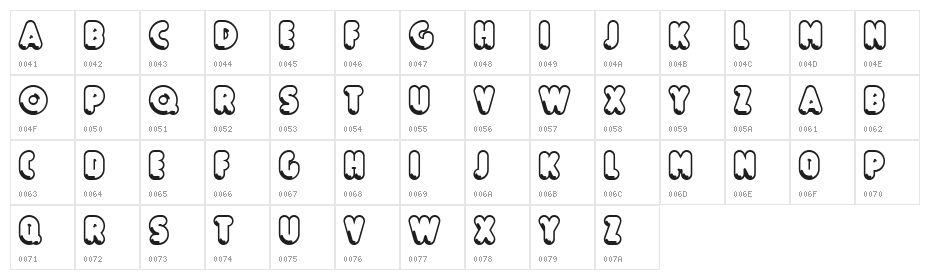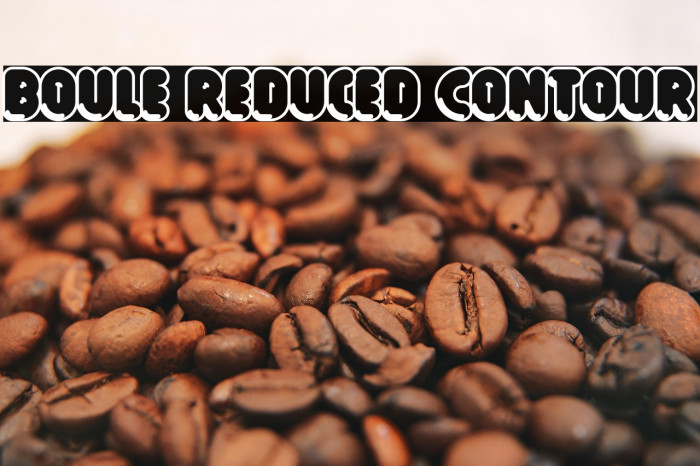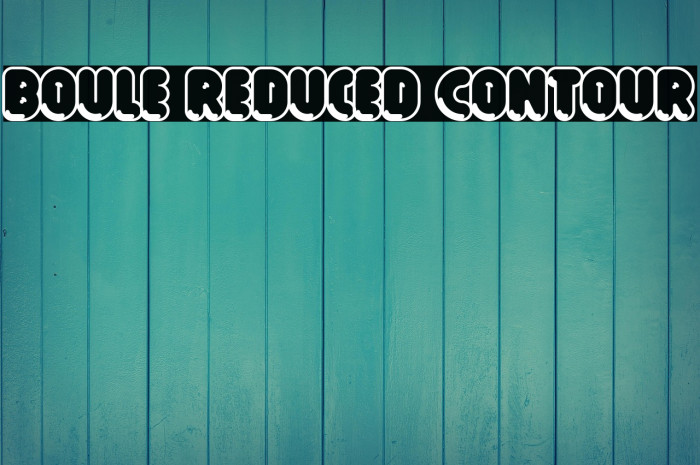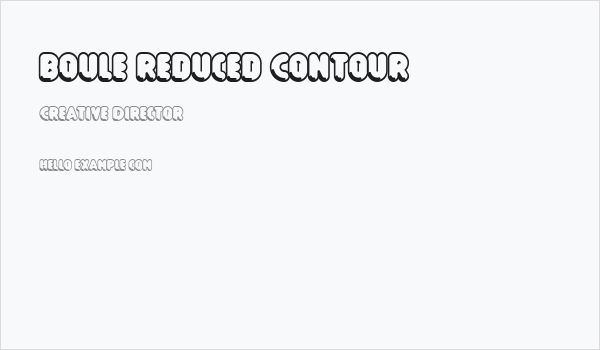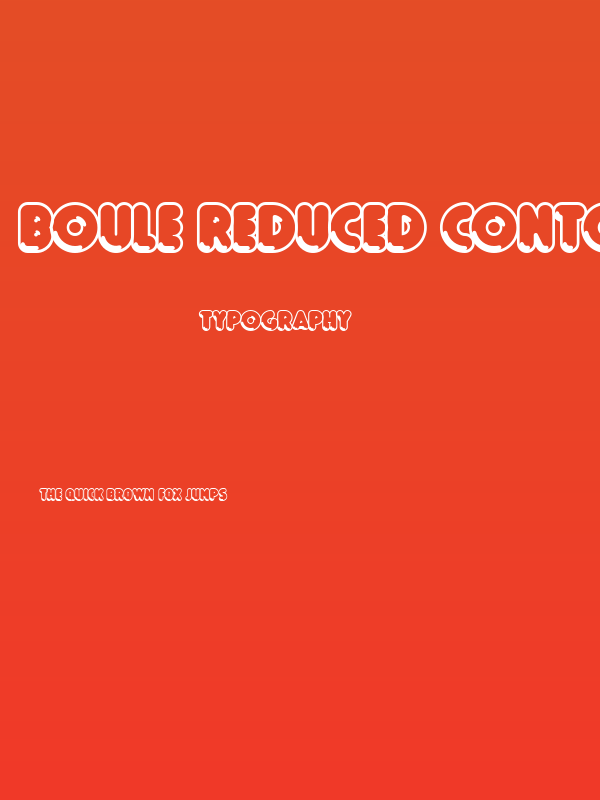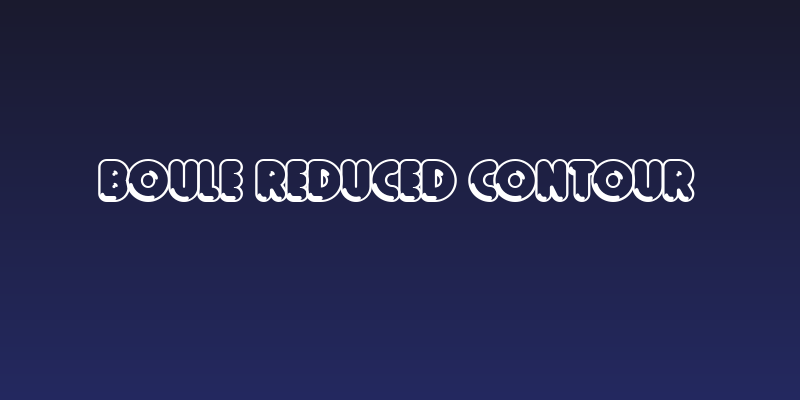
Boule Reduced Contour Font
Boule Reduced Contour Description
This font features a playful and bold design with a three-dimensional effect created by its thick, rounded contours and shadow-like outlines. The letters are uppercase and have a bubbly, cartoonish appearance, making them stand out with a fun and lively personality. The consistent thickness and rounded edges give it a soft, approachable feel, while the outlined style adds depth and visual interest. This font is perfect for projects that require a touch of whimsy and creativity, such as children's books, playful branding, or eye-catching posters.
| Overall Style | Playful, Fun, Cartoonish |
| Proposed Projects | Ideal for children's books, playful branding, posters, and creative designs. |